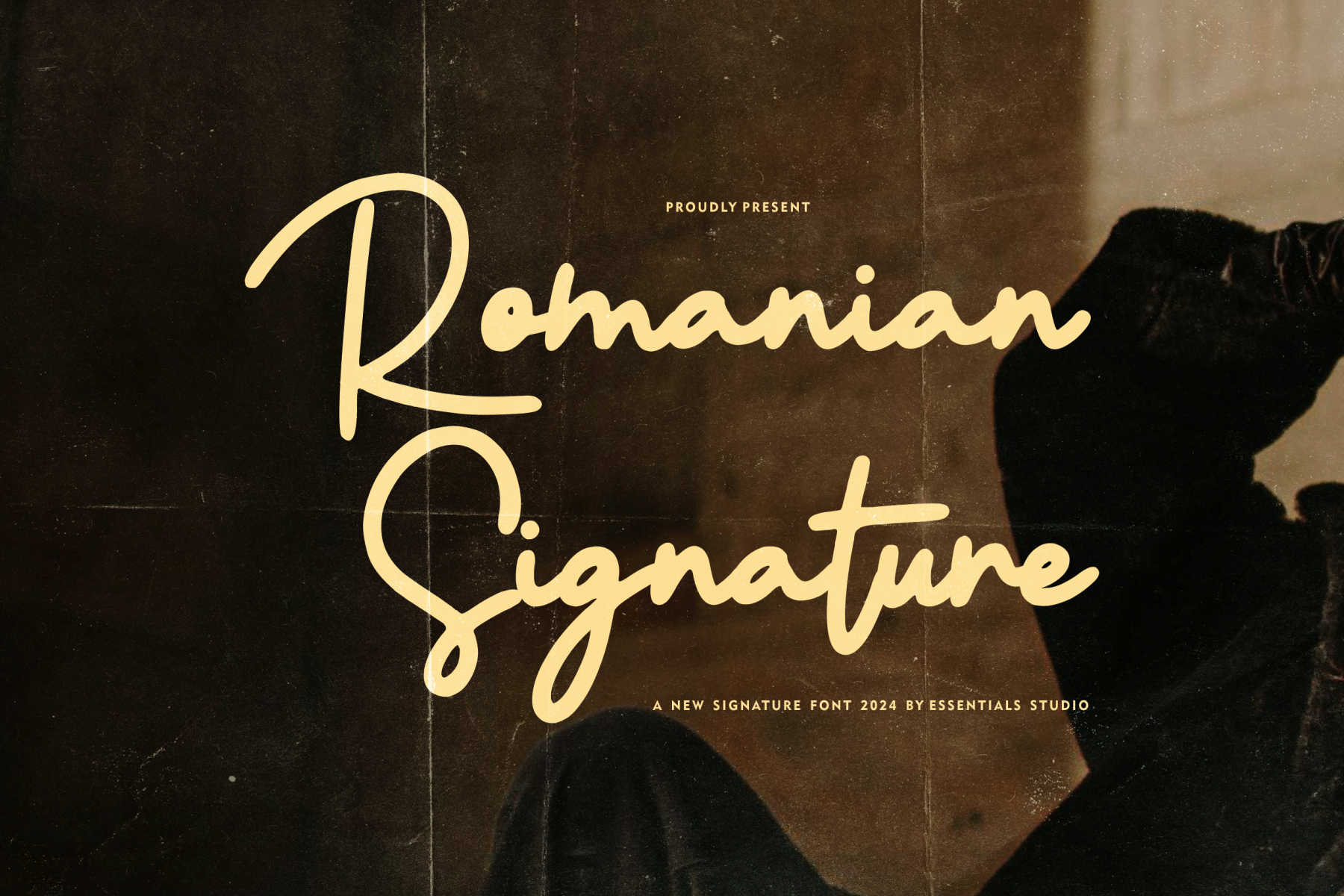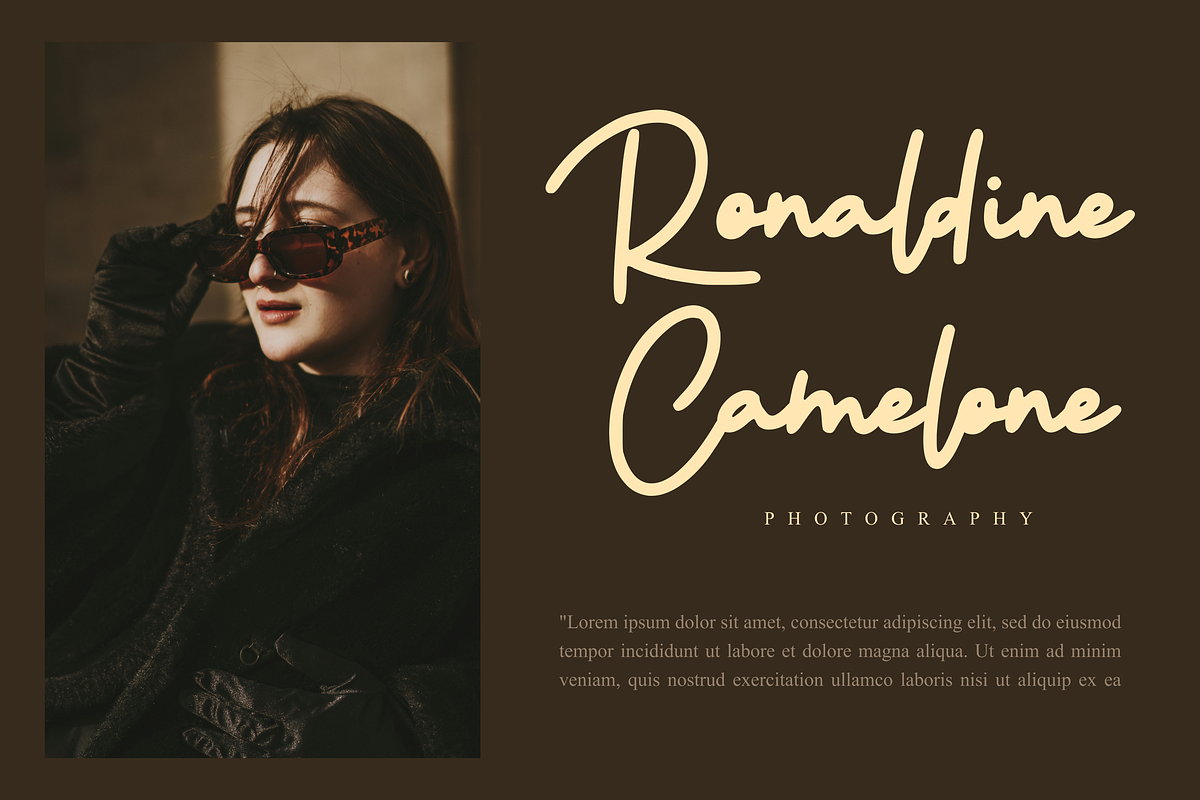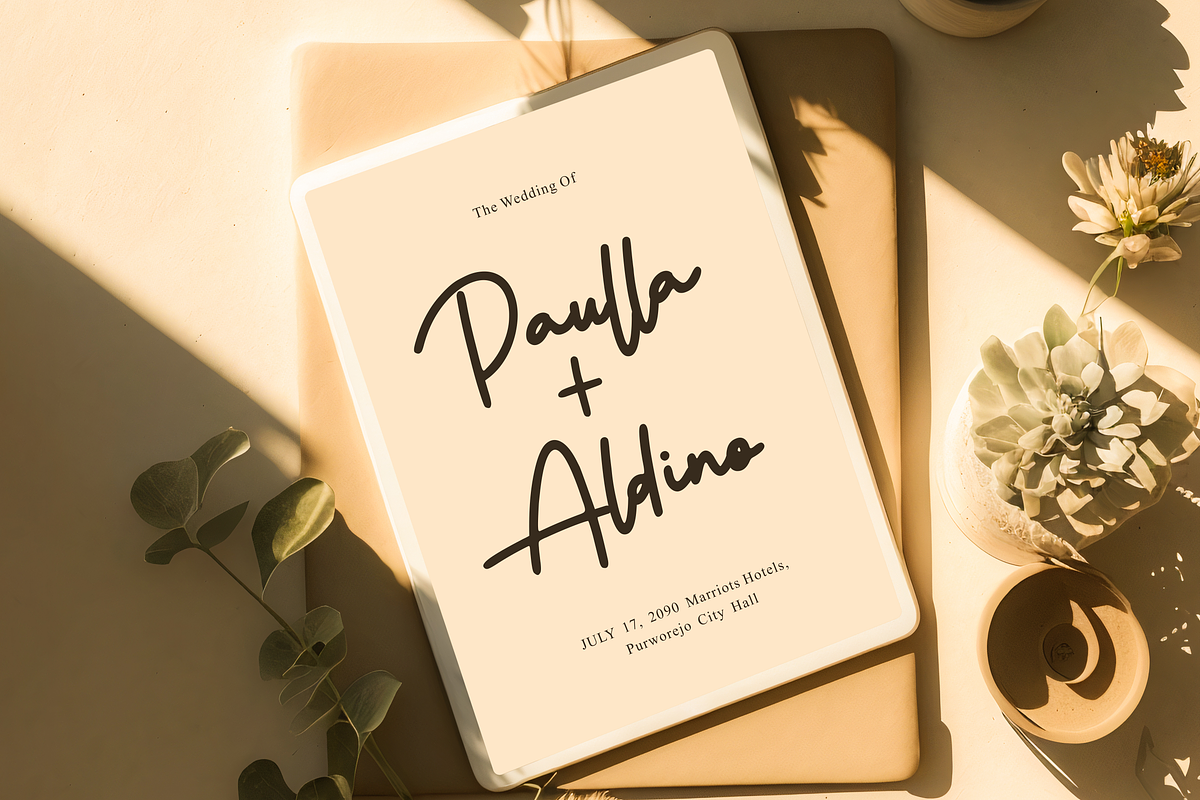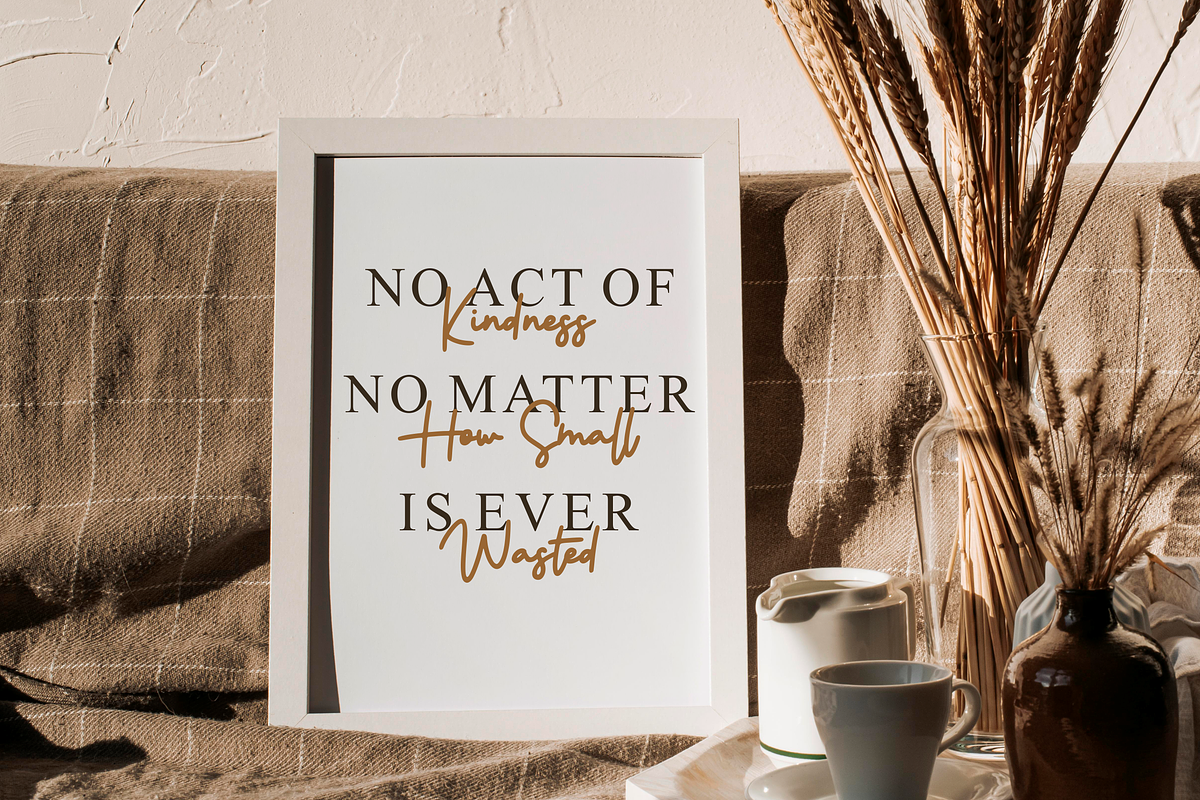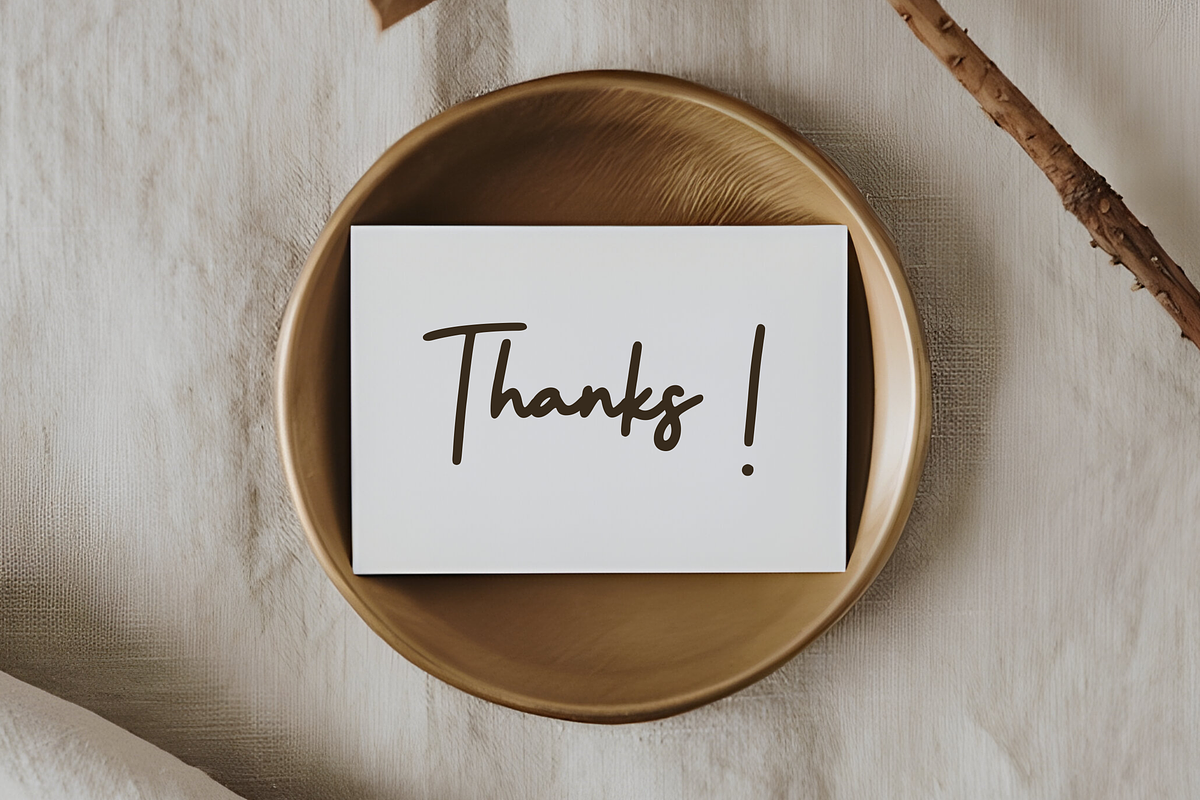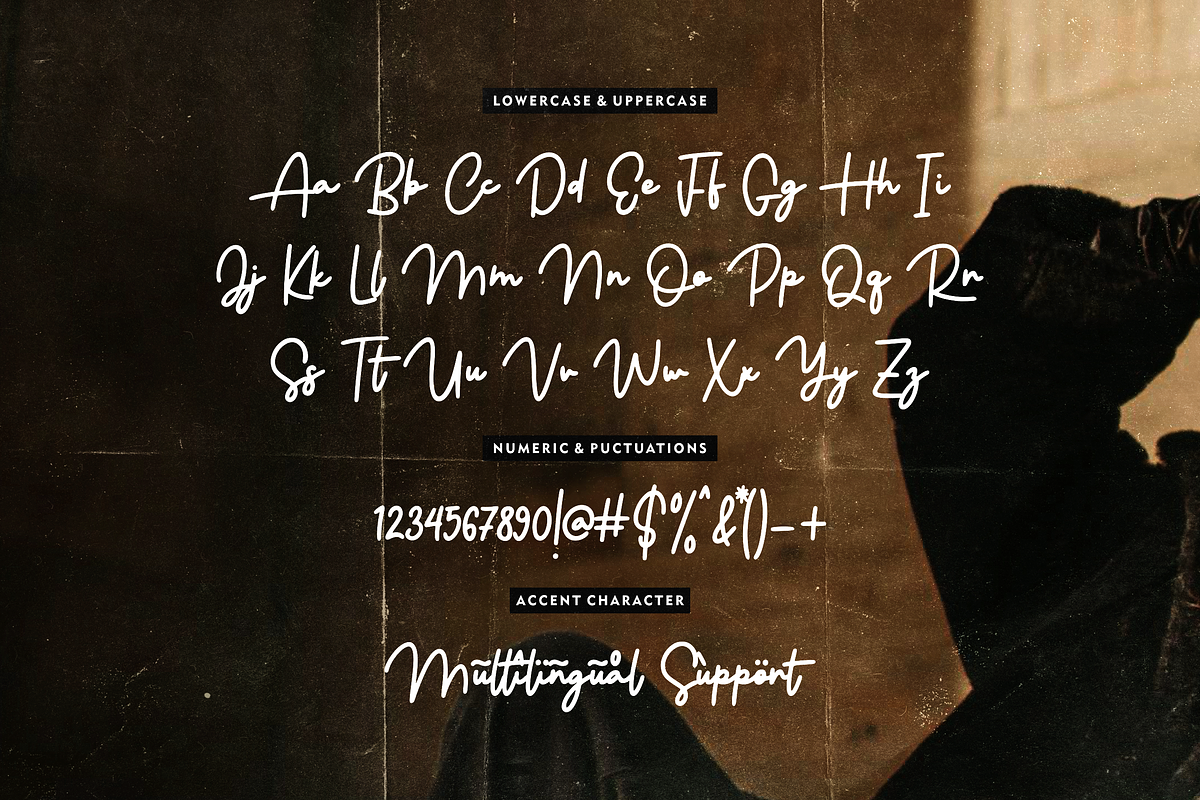
Romanian Signature - Luxury Font
Elevate your designs with Essentials Studio's Romanian Signature Font - a touch of elegance and style interweaved. This careful creation blends sophistication with modern-day charm, embodying a timeless appeal. Featuring elegant strokes and a stylish signature aesthetic, this Romanian font exudes an irresistibly refined vibe that's sure to captivate any audience. It's more than just a typeface; it's the embodiment of grace and class brought to life through artistry and design. Indulge in the beauty of Essentials Studio's Romanian Signature Font, an ultimate tool adding a compelling allure to your creative repertoire.